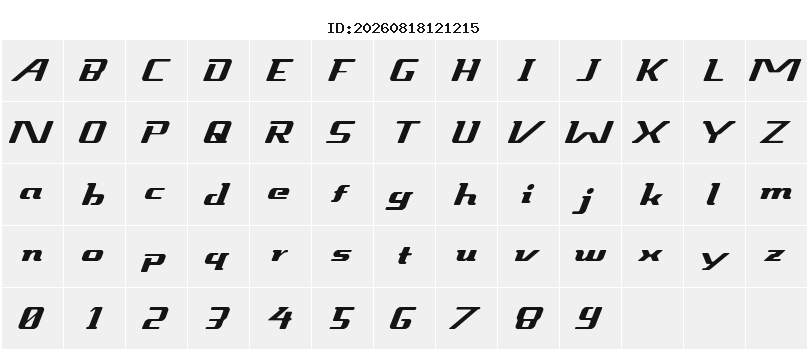
• Font Name: Sneakout
• Full Font Name: Sneakout
• PostScript Name: Sneakout
About Sneakout.ttf
Sneakout.ttf is a modern, elegant sans-serif font designed for ultimate readability and visual harmony. Perfect for branding, headlines, web design, and print materials.